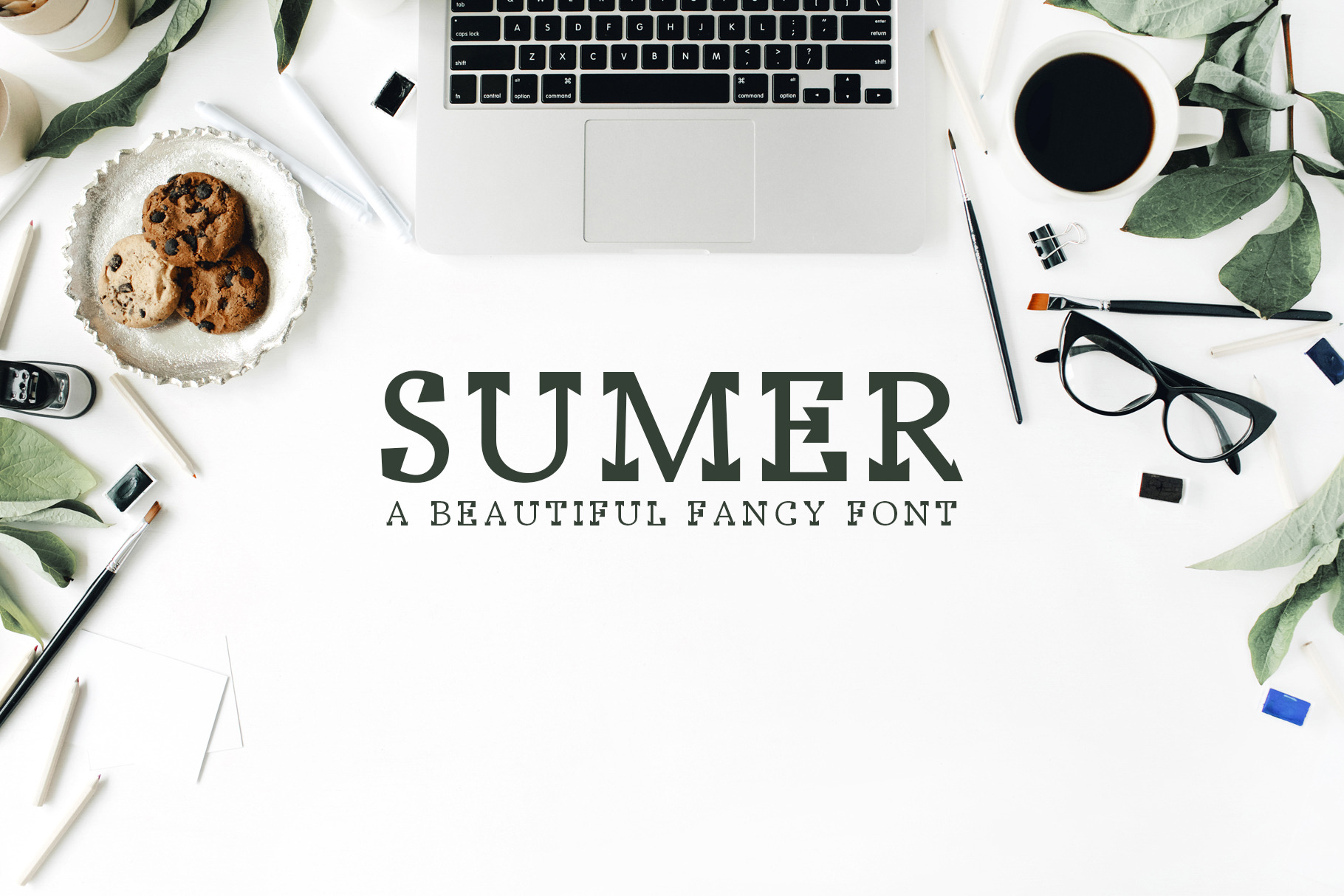
Sumer Fancy 3 Font Family
Sumer Font Family is an artistic, beautiful fancy font, which contains 3 weights and it features unique and modern fancy look and feel.
Perfect for gorgeous logos & titles, layouts & content, or large & small scale, It looks gorgeous in all caps with a wide-set spacing if you want to try a classy look, or beautiful on its own in capital and lowercase letters for something completely timeless.